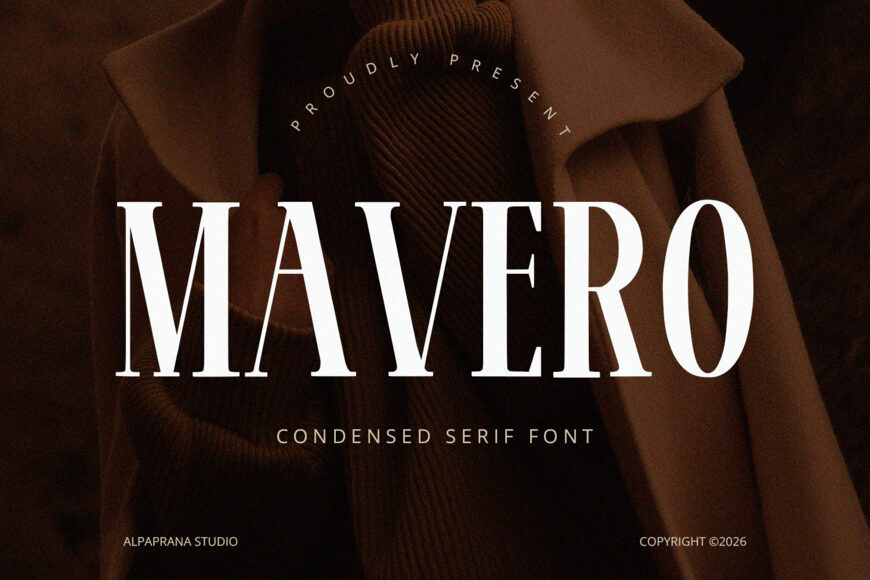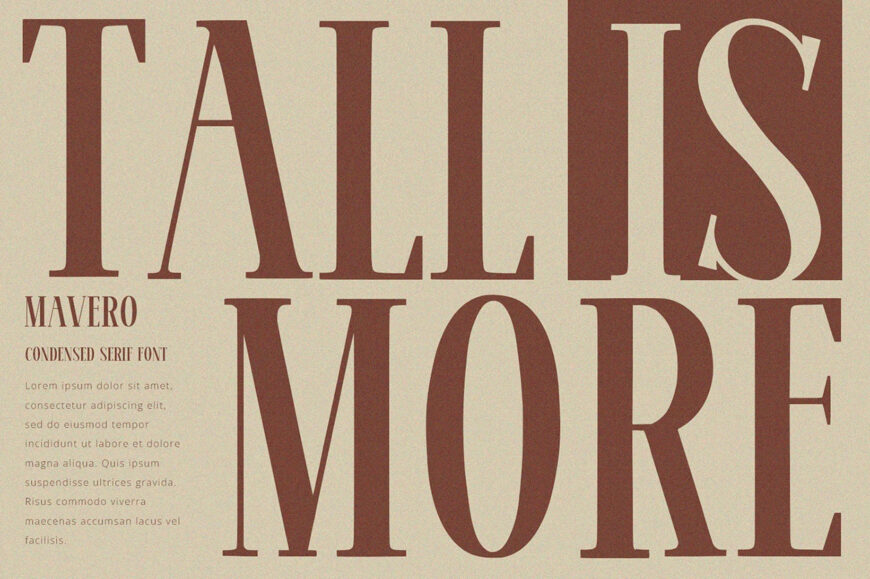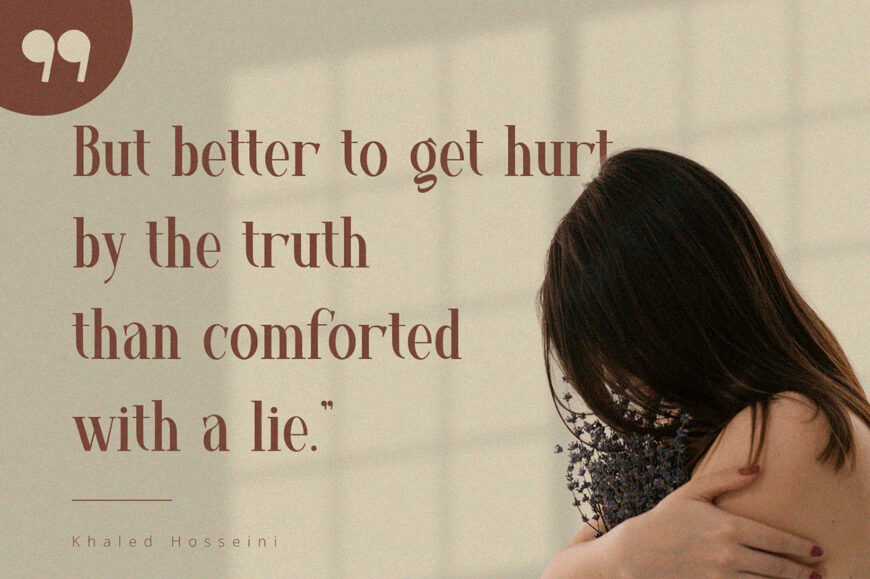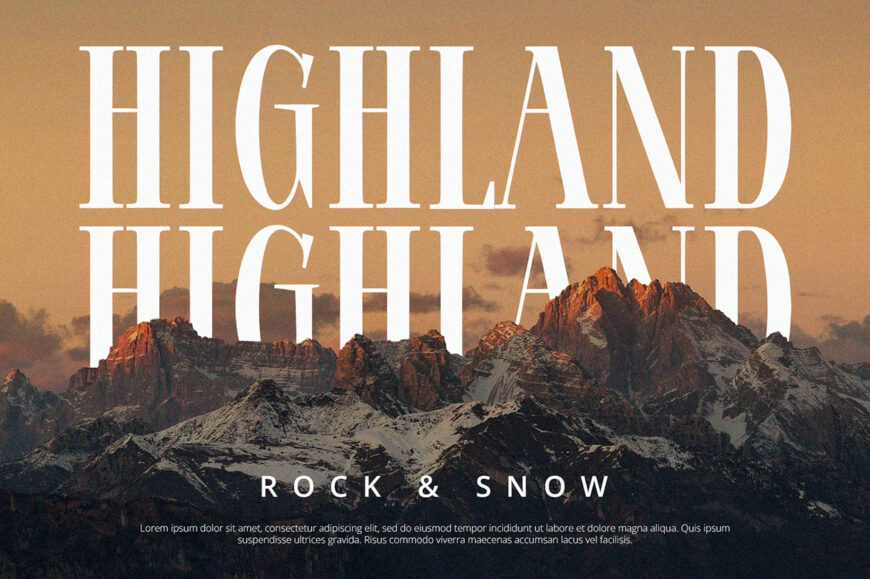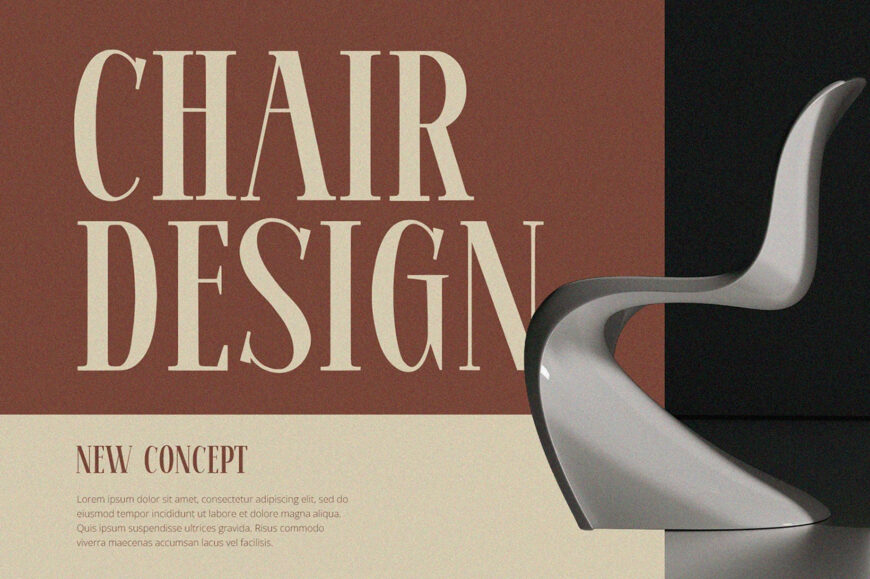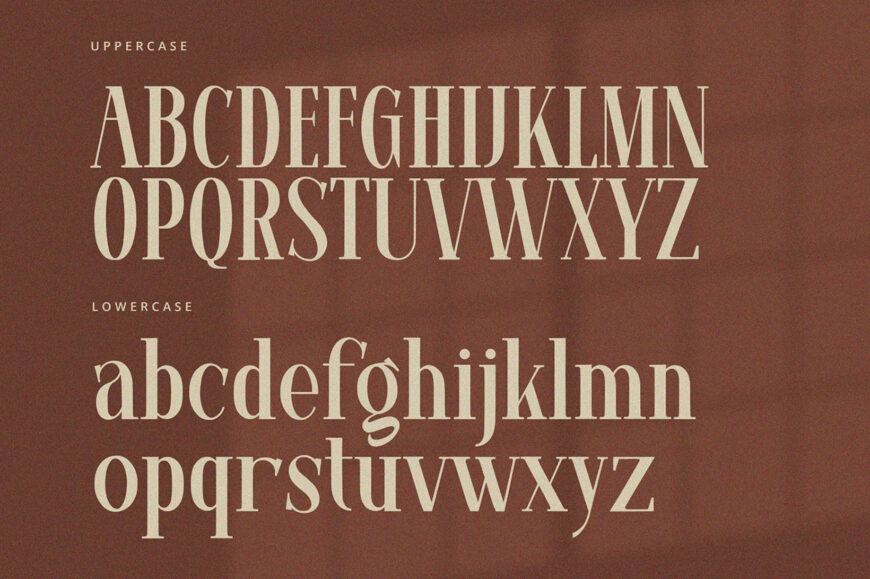
Mavero is a serif display font with modern feels. It will be perfectly used for Branding, Logo Design, Lettering, Logotype, Clothing, Poster, magazine, packaging, posters, shopping bags, t-shirts, book covers, photography, special events and other design project.